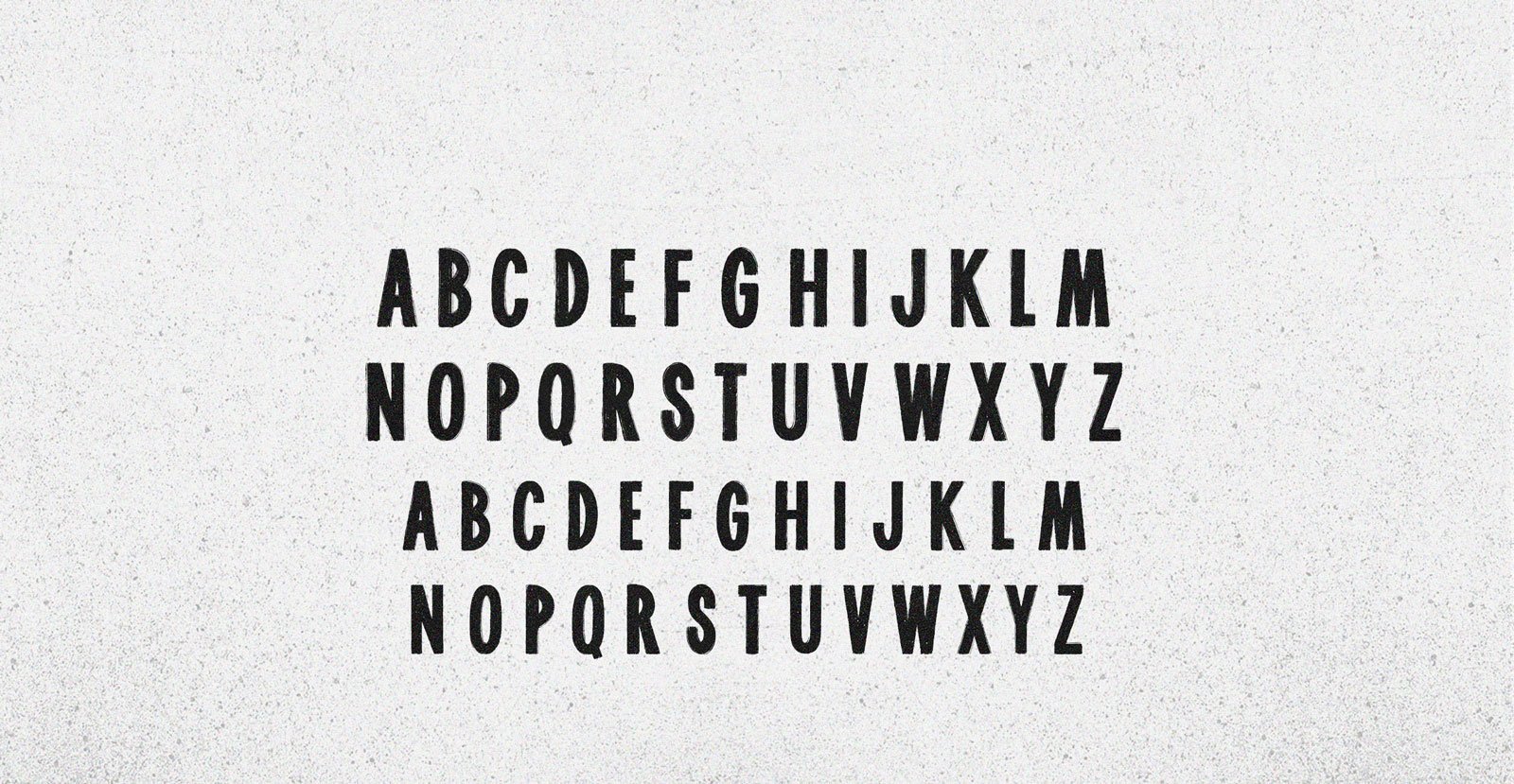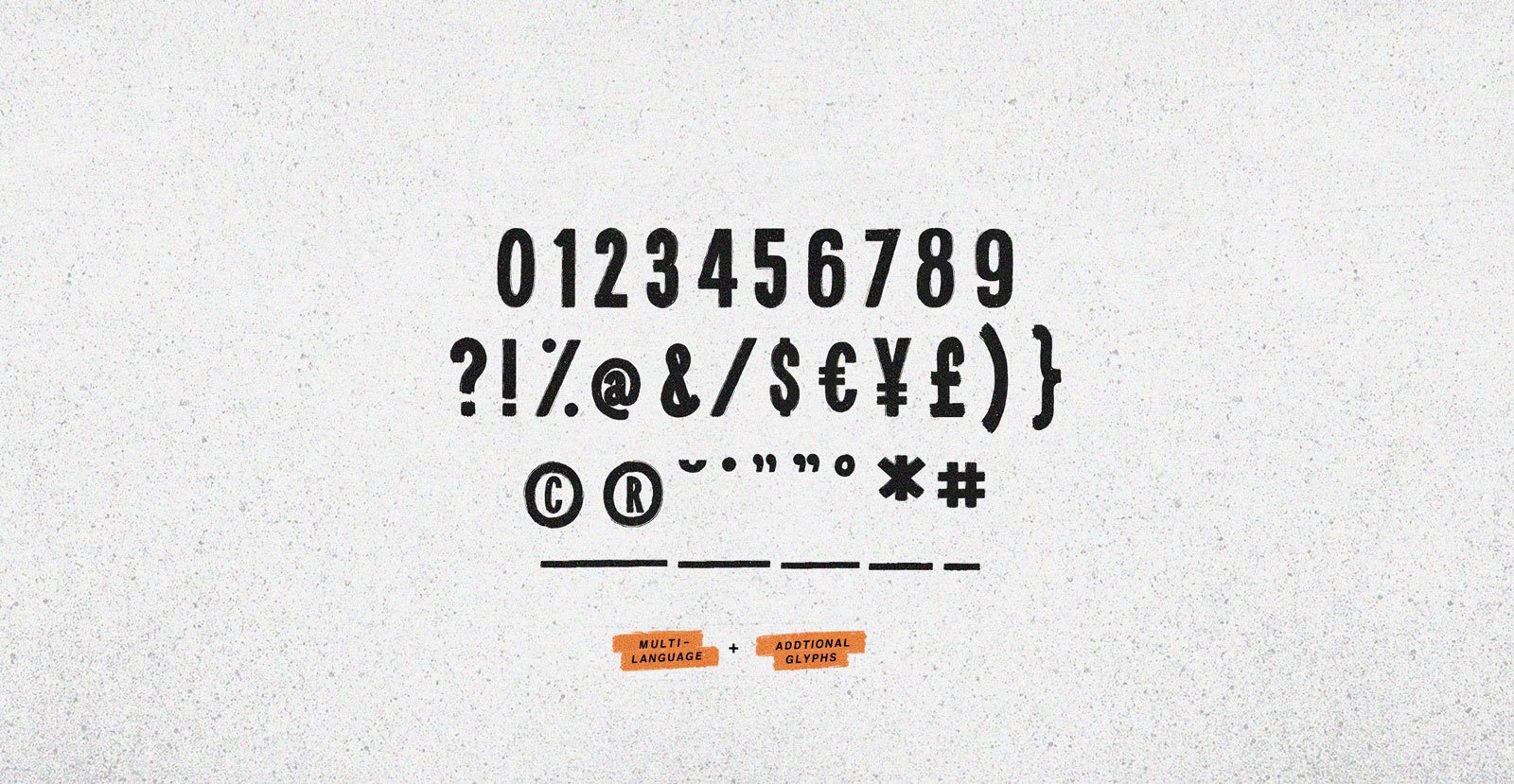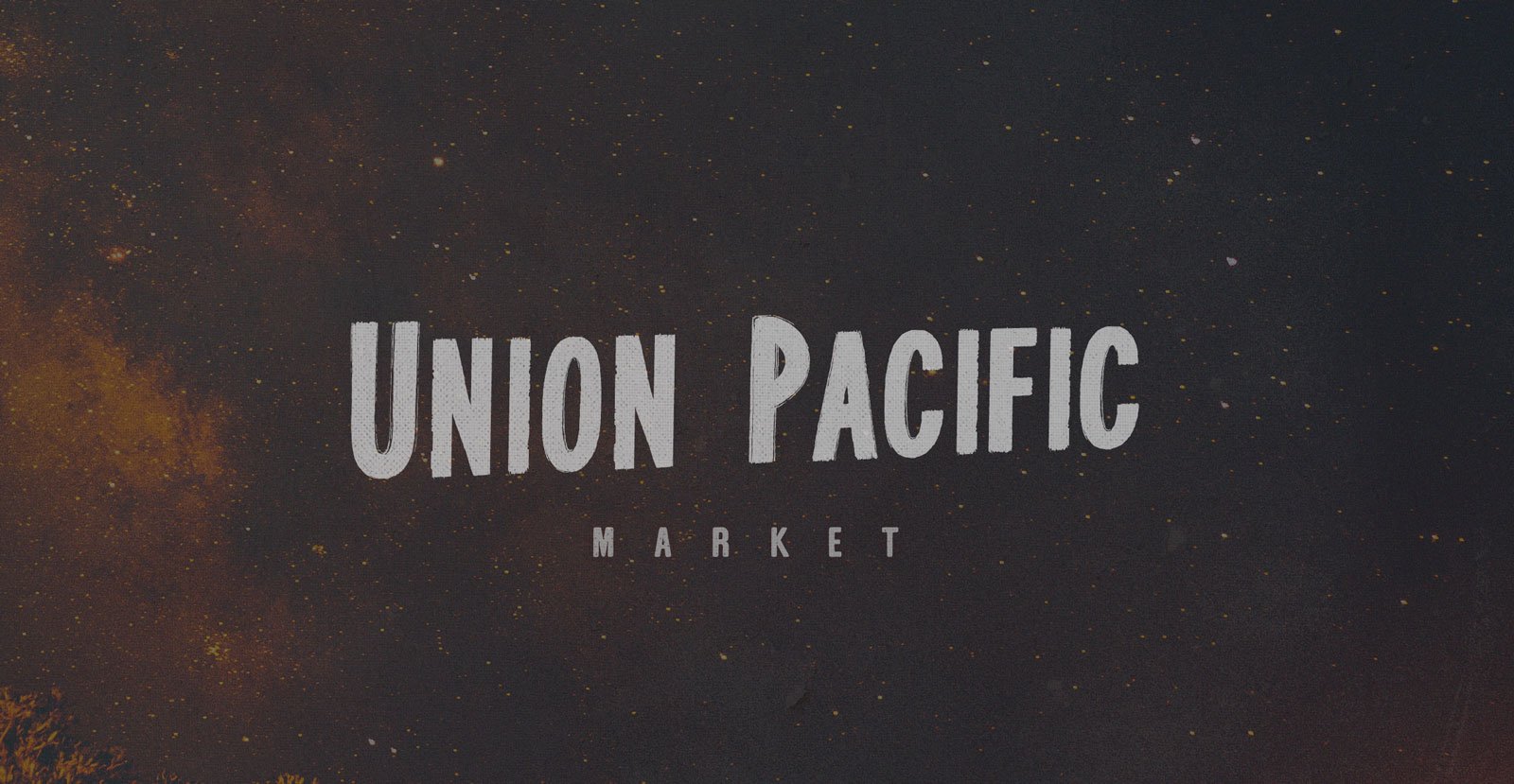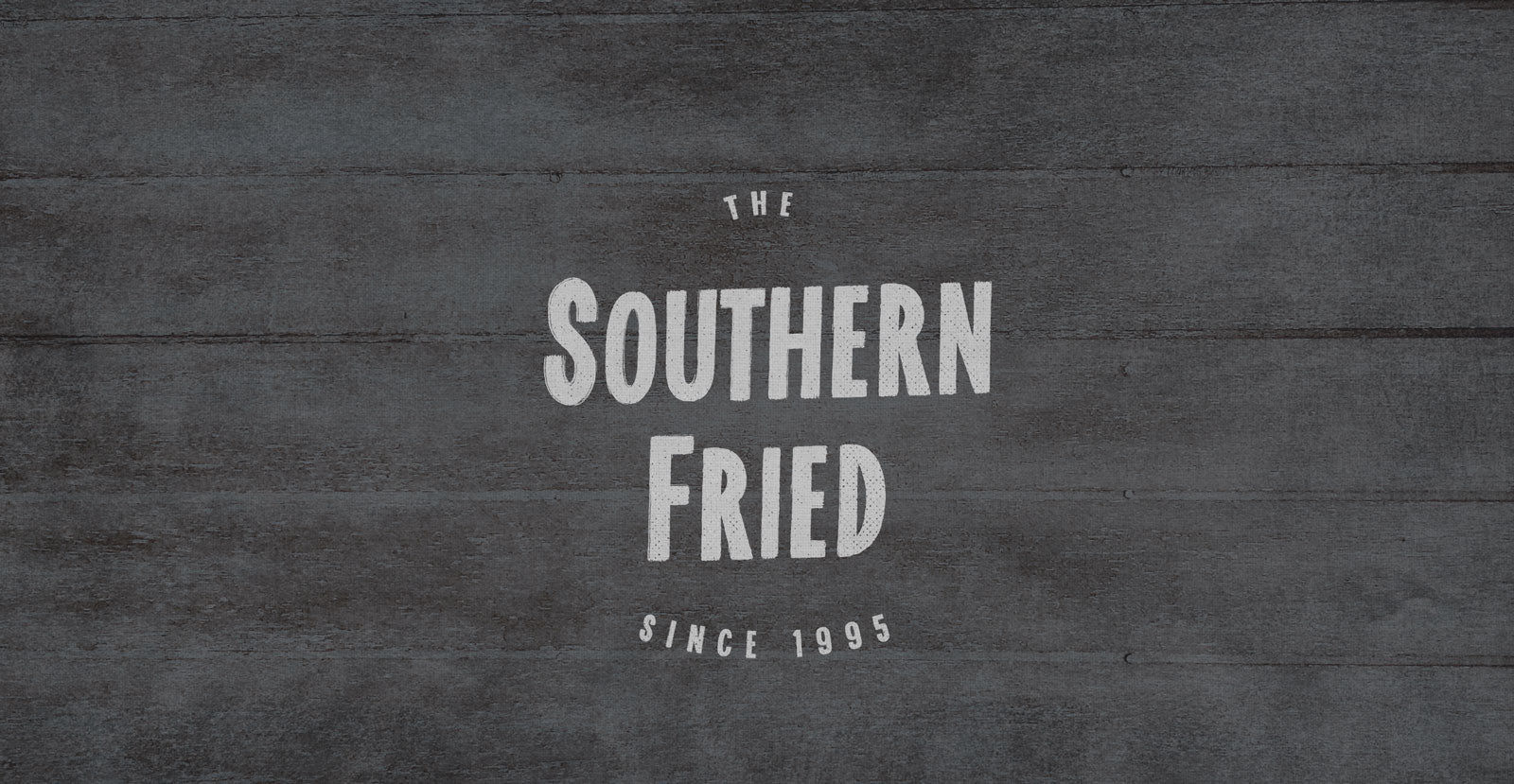
Real World
Handwritten Sans Serif Font
Implausible as it seemed, there it was: Room √-119. That was simple scrawl on a door that they pushed through into the support group for solipsists, finding wall panels of particle board and windows of crepe paper. The rain came and washed it away, swirling sludge down the storm drain, rinsing them into the Real World.